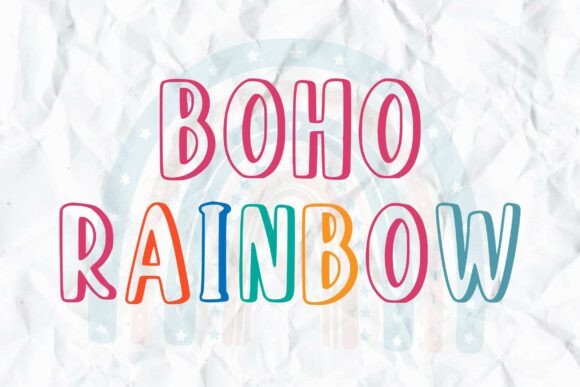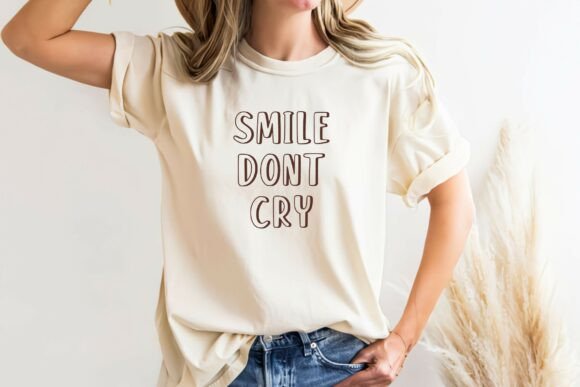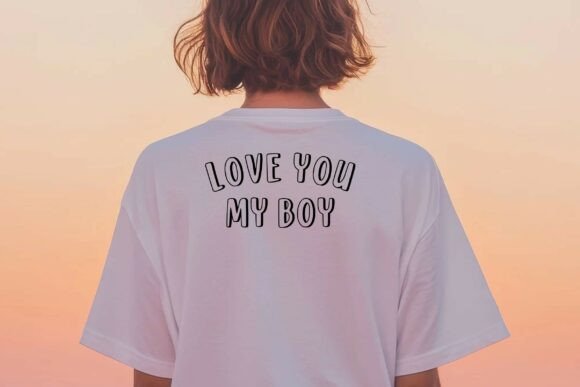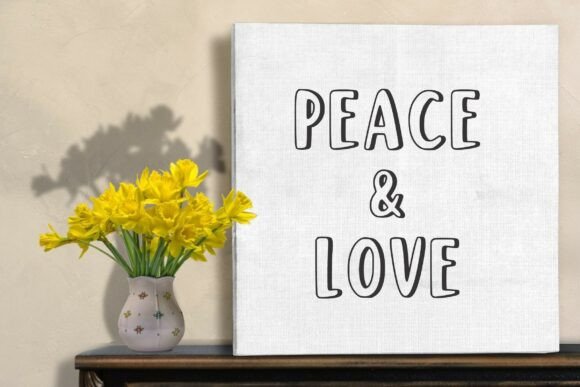
Doodlegrafity Regular Font: Adding a Touch of Whimsy to Your Designs
In the world of typography, fonts play a crucial role in conveying the tone and personality of a design. For designers and crafters looking to add a dash of fun and playfulness to their projects, Doodlegrafity Regular Font is an excellent choice. This charming display font is perfect for creating eye-catching designs that exude cuteness, brightness, and joy.
The Characteristics of Doodlegrafity Regular Font
Doodlegrafity Regular Font is a playful display font that boasts a unique and distinctive style. Its irregular shapes and lines give it a hand-drawn feel, making it perfect for designs that require a personal touch. The font’s playful nature makes it an excellent choice for children’s themed designs, such as kids’ party invitations, children’s book covers, and educational materials.
Why Doodlegrafity Regular Font Stands Out
So, what makes Doodlegrafity Regular Font stand out from other fonts? Here are a few reasons why designers and crafters love this font:
• Cuteness Overload: Doodlegrafity Regular Font is designed to be cute and endearing. Its playful and irregular shapes make it perfect for designs that require a touch of whimsy.
• Brightness and Fun: The font’s bold and vibrant style makes it perfect for designs that require a pop of color and energy.
• Versatility: Doodlegrafity Regular Font can be used for a wide range of design projects, from children’s designs to adult-oriented projects that require a playful touch.
Pairing Doodlegrafity Regular Font with Colors
To get the most out of Doodlegrafity Regular Font, it’s essential to pair it with the right colors. The font truly shines when paired with vibrant or pastel color palettes. Here are some color combinations that work well with Doodlegrafity Regular Font:
• Pastel Paradise: Pair Doodlegrafity Regular Font with soft pastel colors like light pink, baby blue, and mint green for a sweet and soothing design.
• Vibrant Fiesta: Combine Doodlegrafity Regular Font with bright and bold colors like hot pink, electric blue, and sunshine yellow for a fun and energetic design.
• Neutral Delight: Pair Doodlegrafity Regular Font with neutral colors like white, gray, and beige for a clean and modern design.
Using Doodlegrafity Regular Font in Your Designs
Adding Doodlegrafity Regular Font to your designs is easy. Here are some tips to get you started:
• Use it as a Display Font: Doodlegrafity Regular Font is perfect for headlines, titles, and other display text.
• Experiment with Font Sizes: Play around with different font sizes to create visual interest and hierarchy in your design.
• Combine it with Other Fonts: Pair Doodlegrafity Regular Font with other fonts to create a unique and interesting typography combination.
Doodlegrafity Regular Font is a playful and charming display font that can add a touch of whimsy to your designs. Its unique style and versatility make it perfect for a wide range of design projects, from children’s designs to adult-oriented projects. By pairing it with the right colors and using it in creative ways, you can create designs that are not only visually appealing but also fun and engaging.